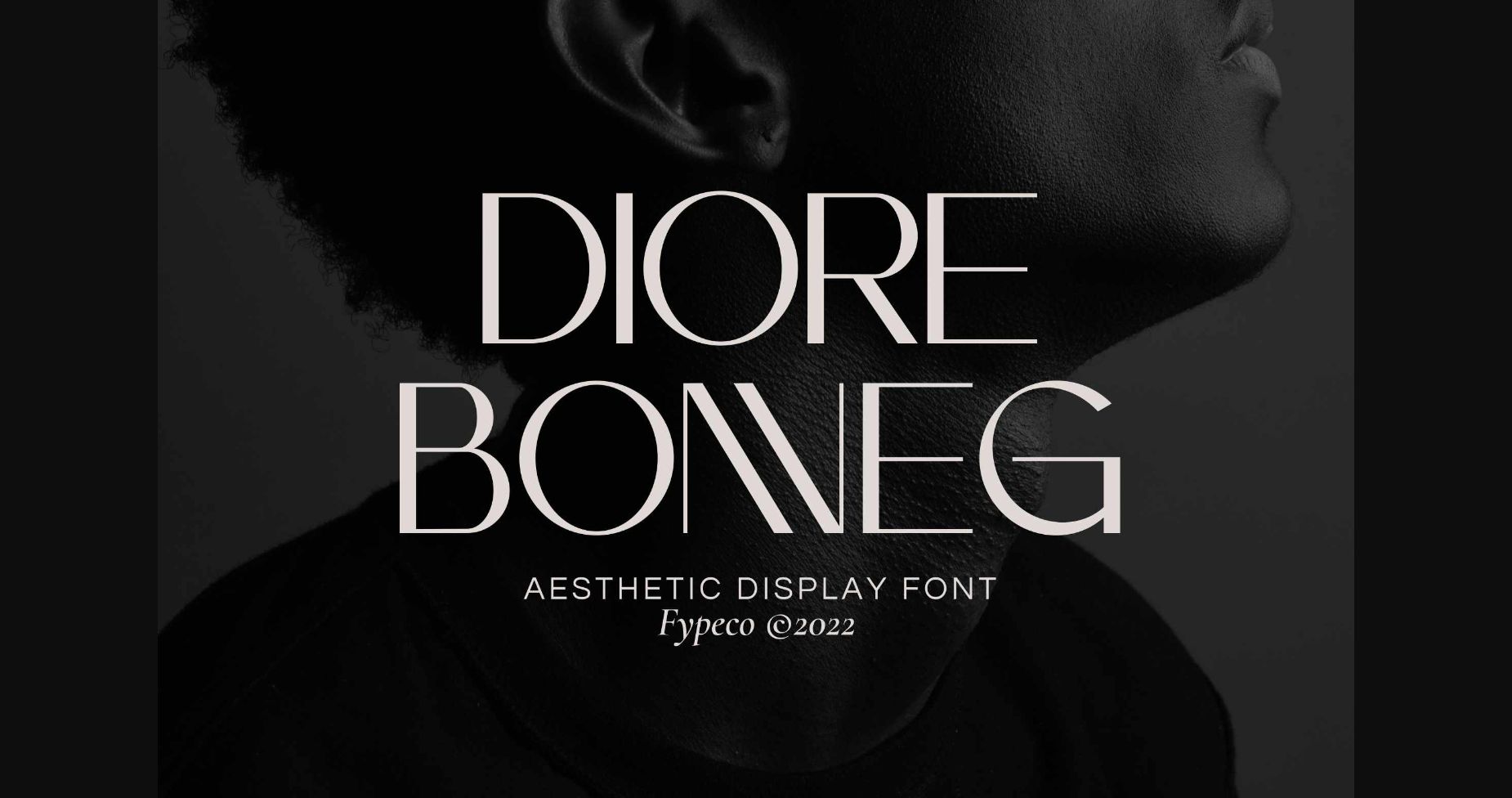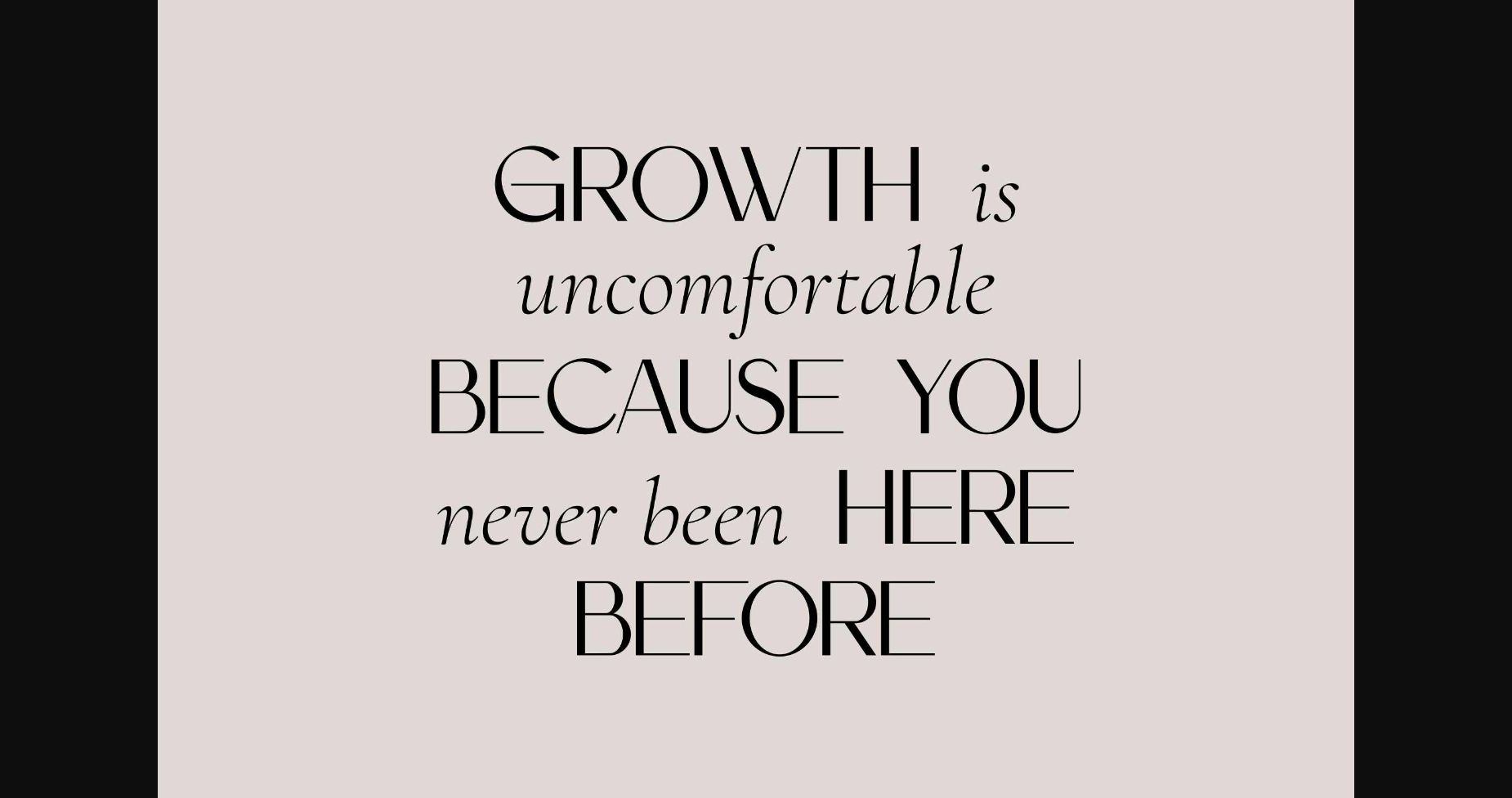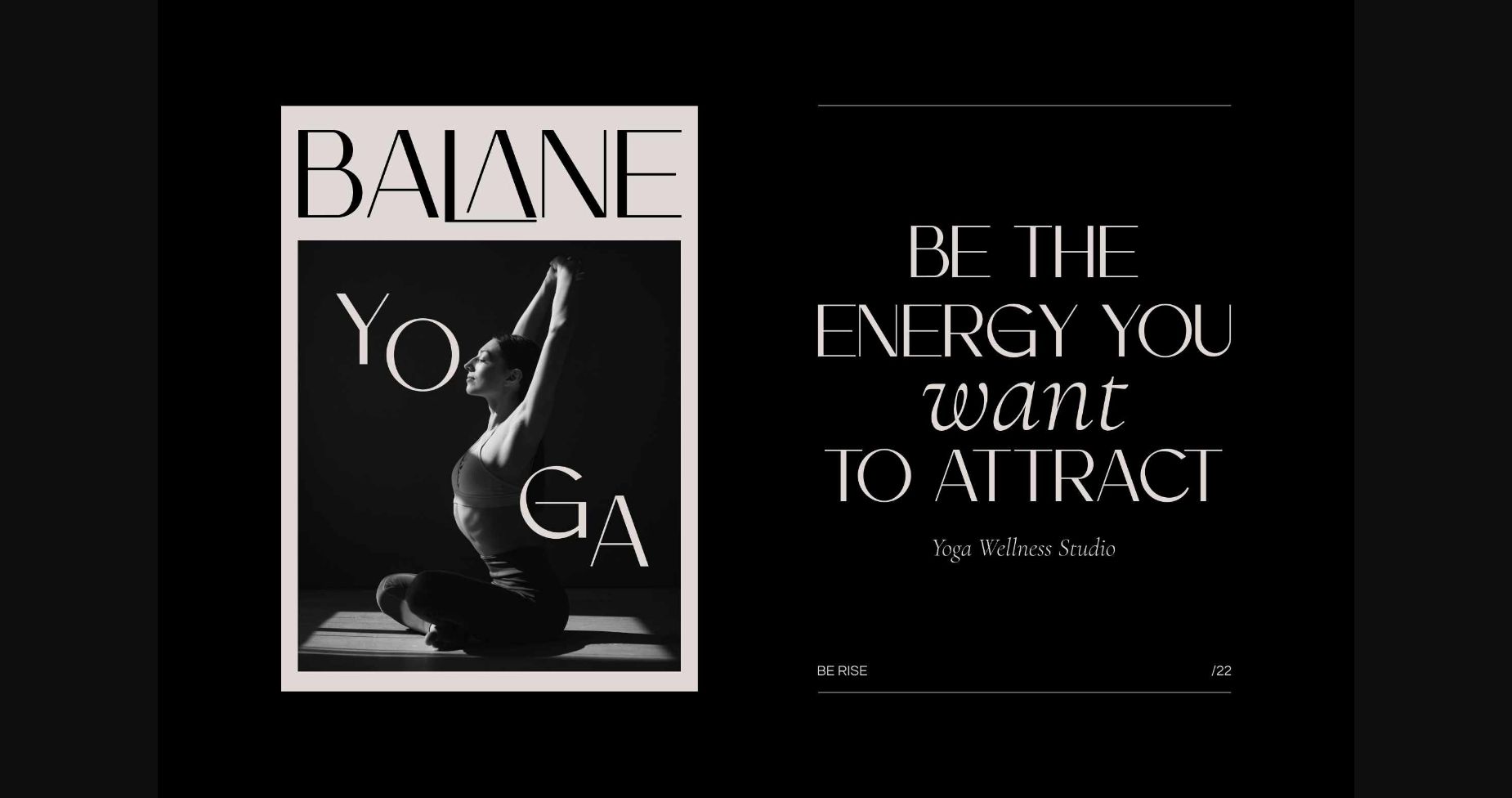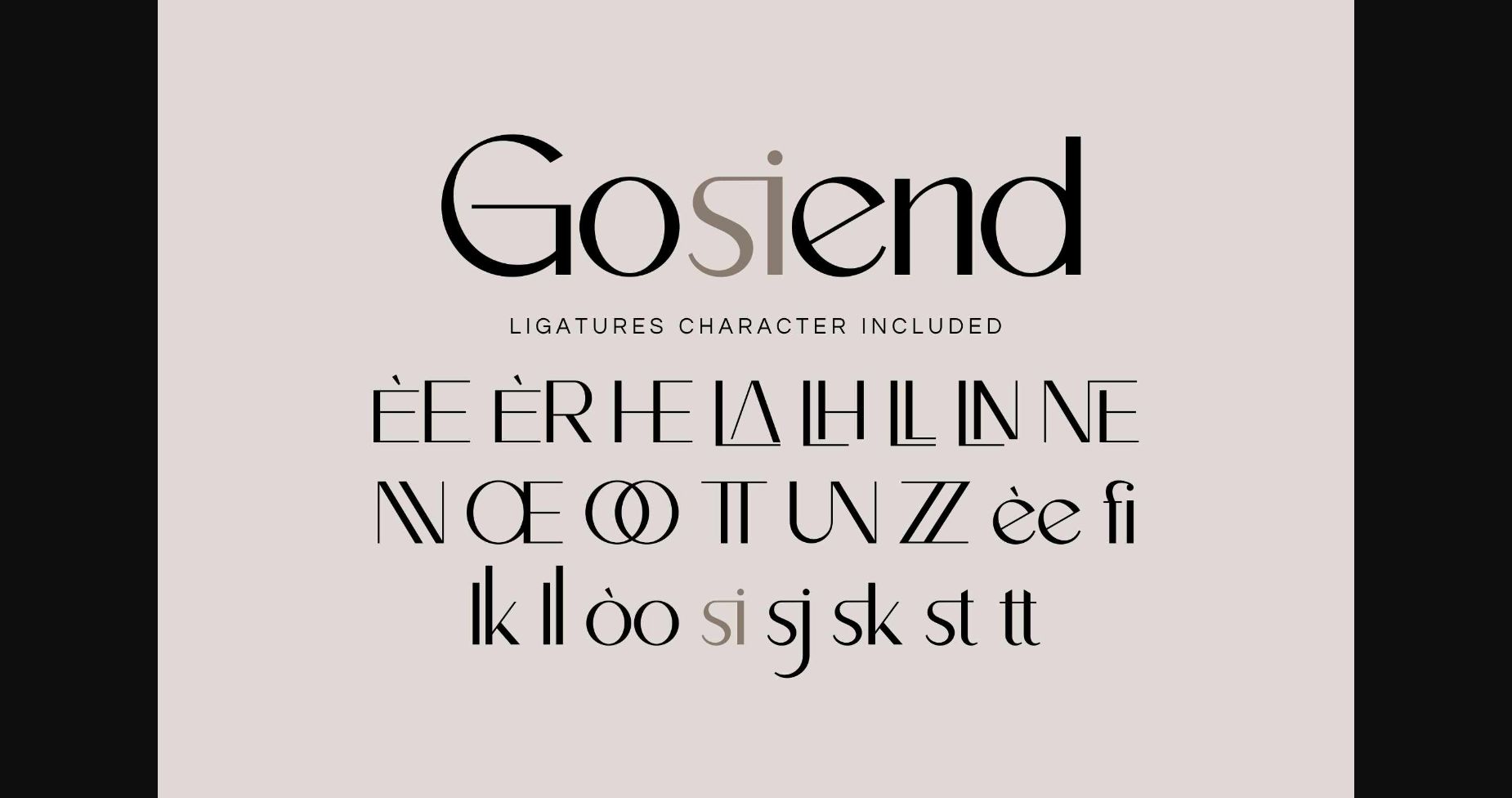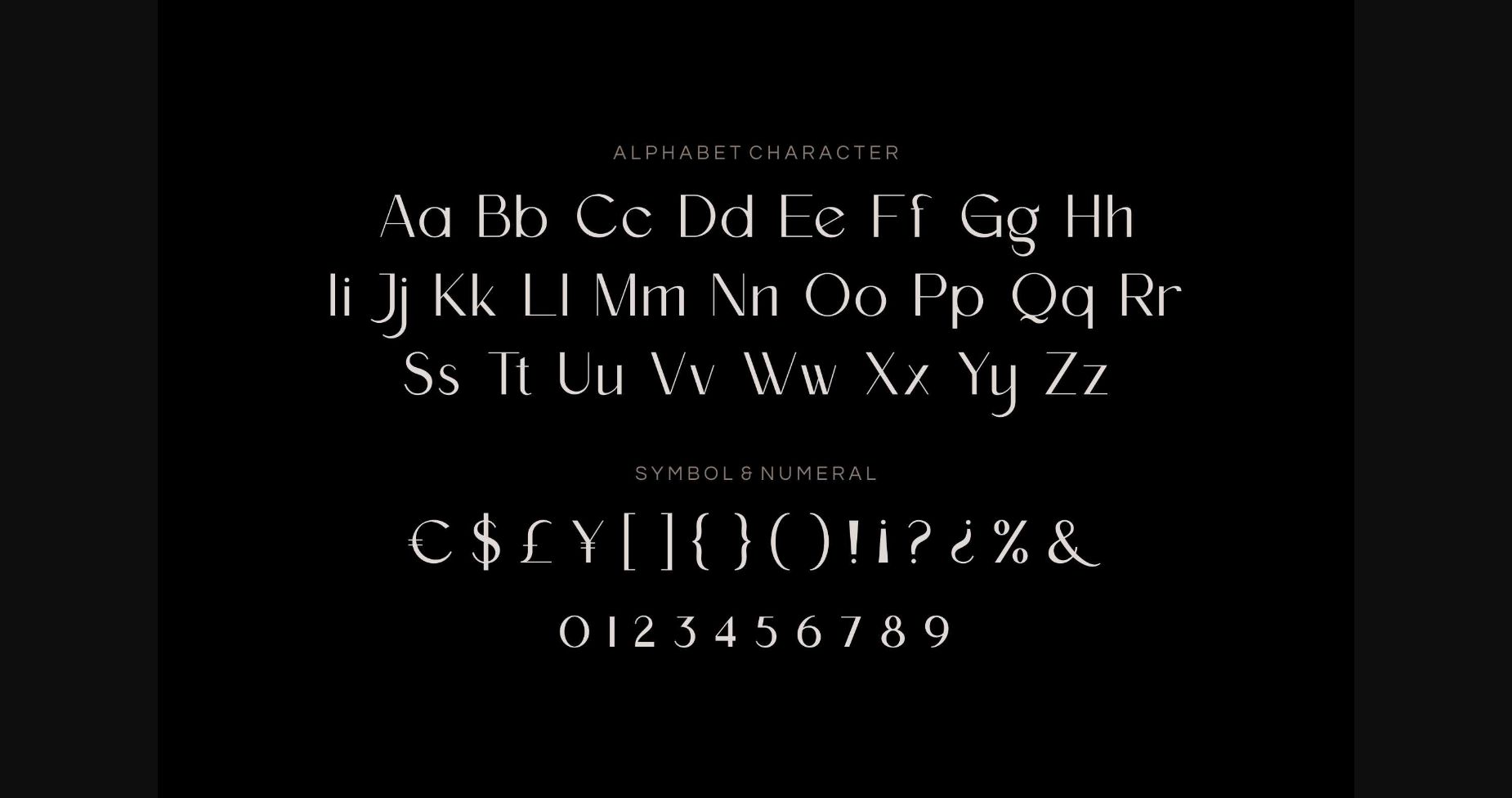
About Diore Bonneg Font
Diore Bonneg is an aesthetic, stylish sans display font with a modern, simple, clean, and minimalist look. Whether it’s a website, brochure, or advertisement, this font style adds a touch of elegance and beauty that will never go out of style.